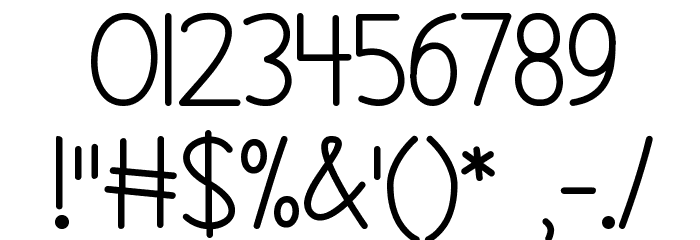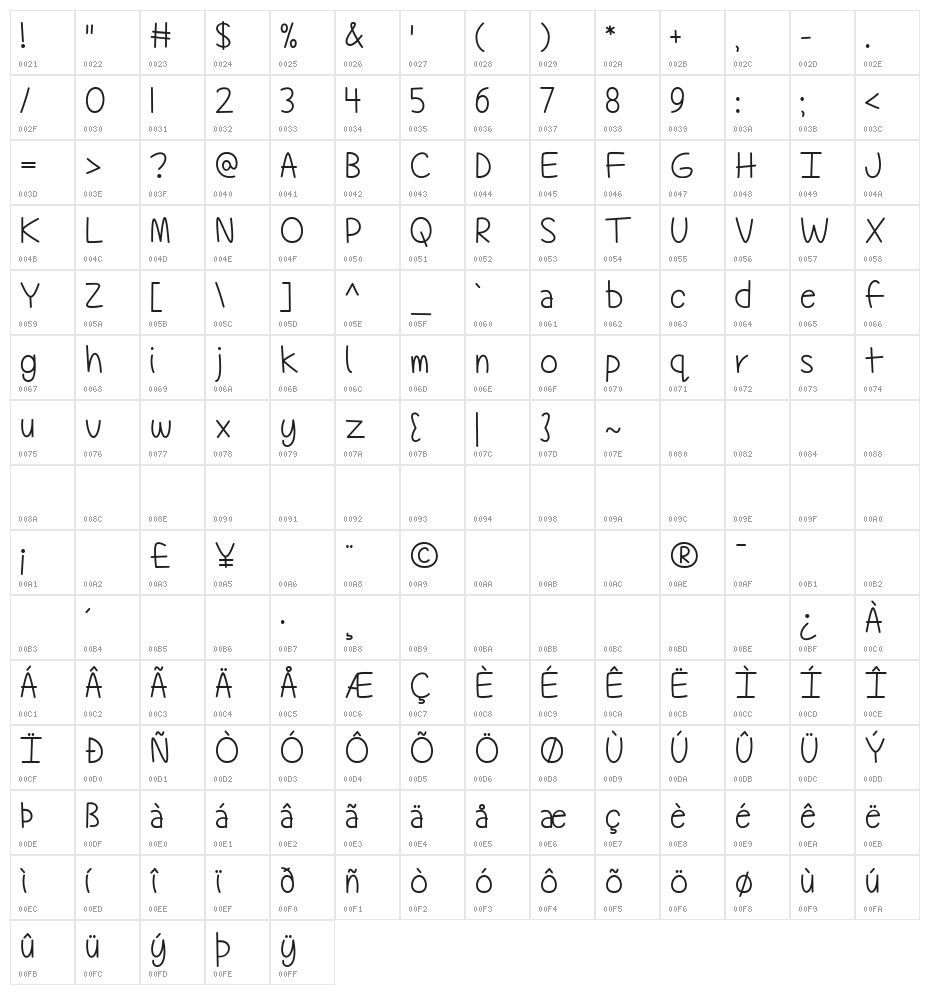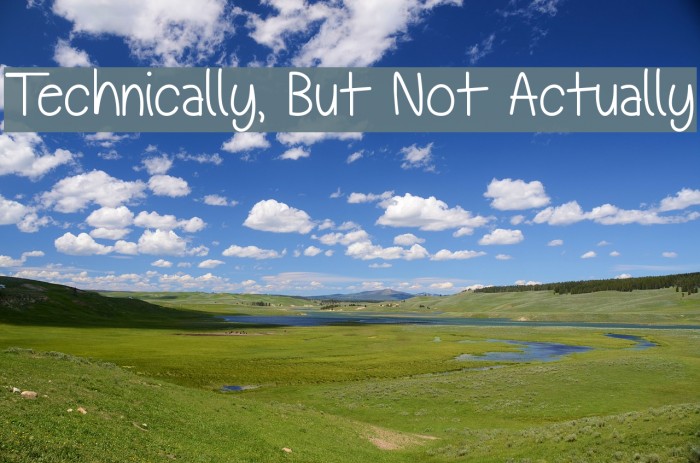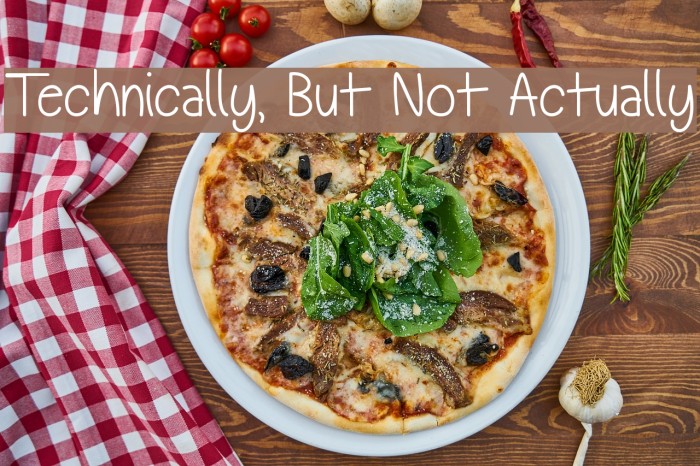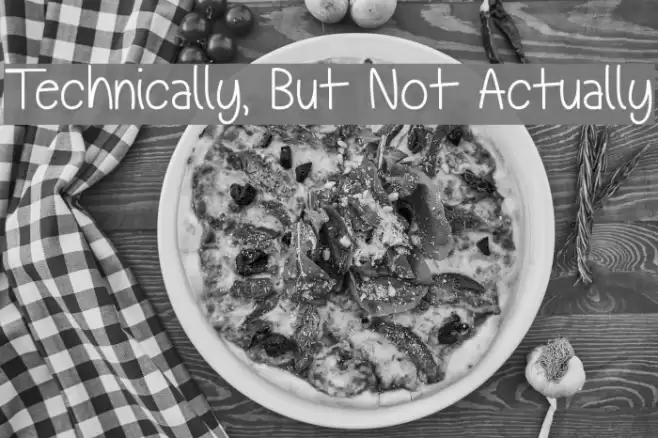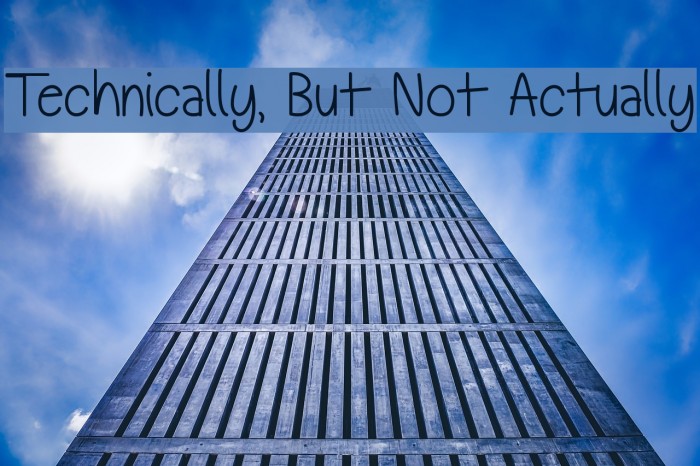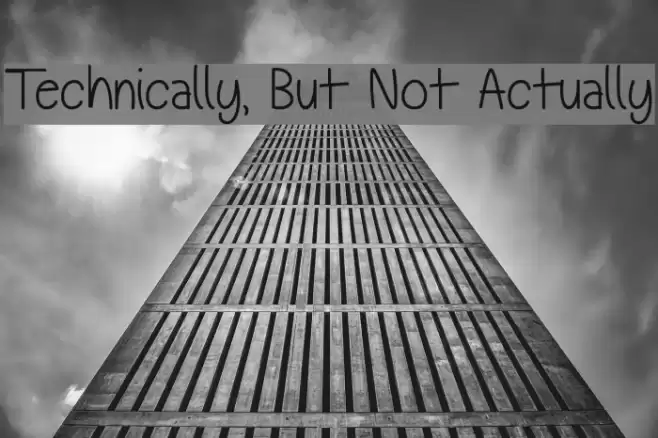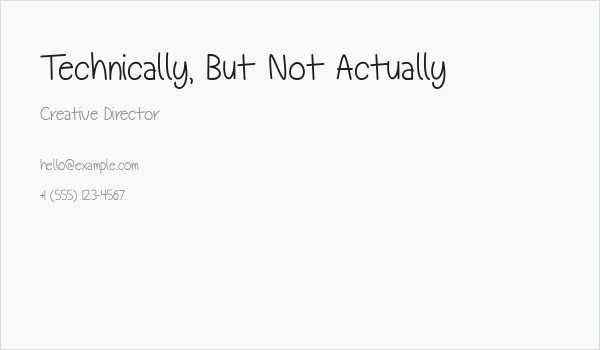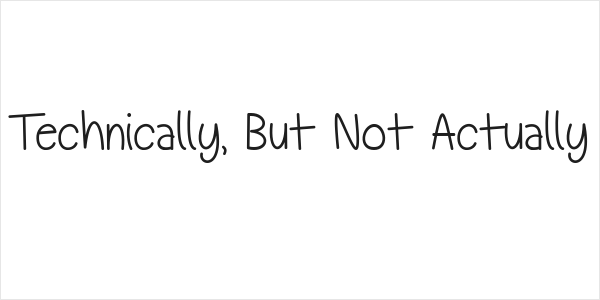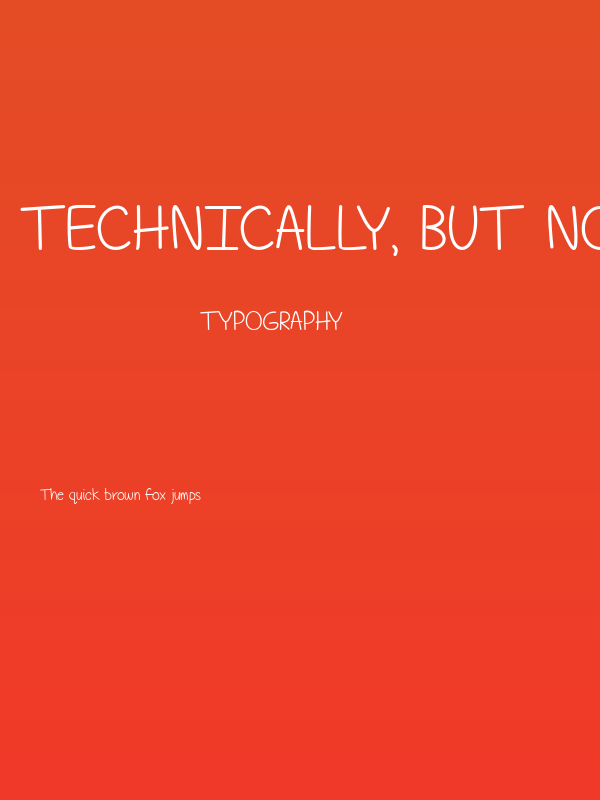
Technically, But Not Actually Font
Technically, But Not Actually Description
This font features a playful and casual handwritten style, characterized by its rounded and slightly irregular letterforms. The uppercase letters are tall and narrow, while the lowercase letters maintain a consistent height, giving the font a cohesive appearance. The numerals are clear and easy to read, with a similar playful touch. Special characters are well-integrated, maintaining the overall aesthetic. The font's informal and friendly nature makes it suitable for projects that require a personal touch.
| Proposed Projects | Ideal for children's books, greeting cards, informal invitations, and playful branding. |